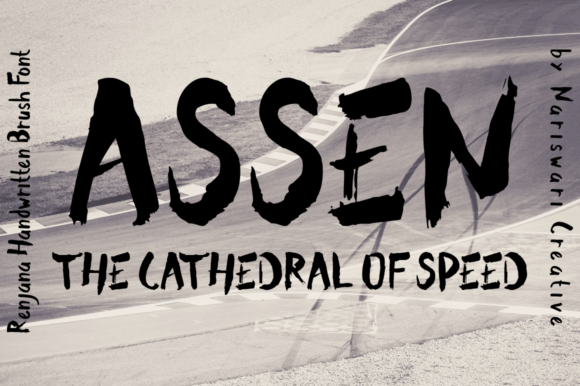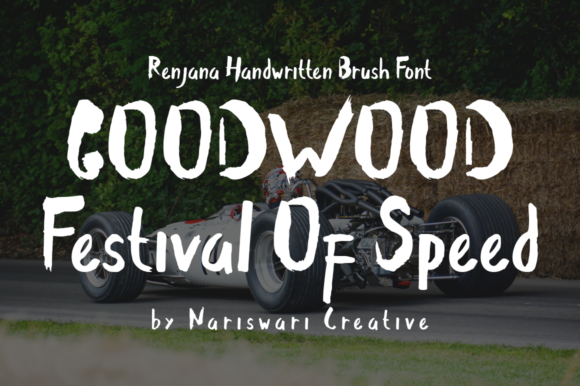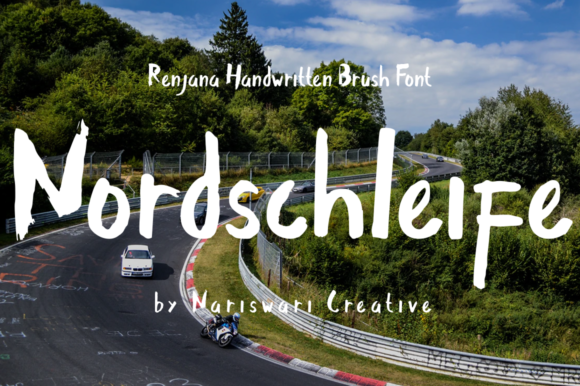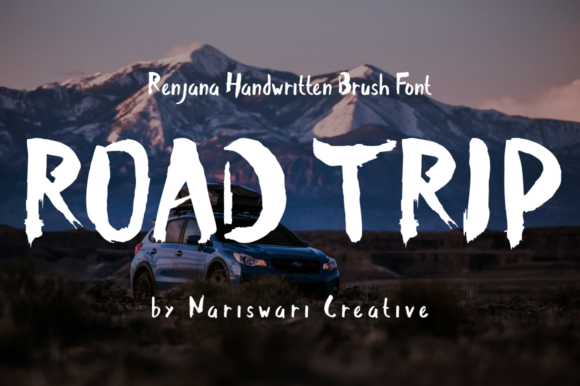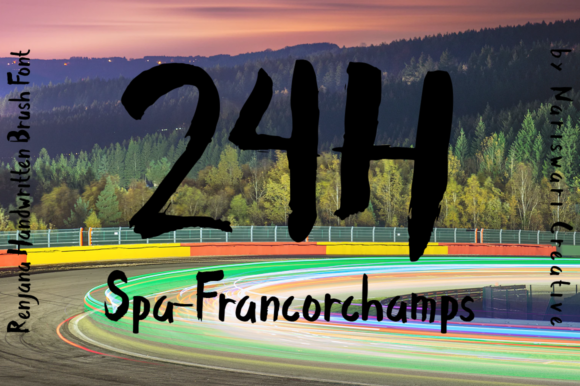
Introduction to Renjana Font
Renjana is a unique and interesting handwritten font.
A little bit quirky, this font looks incredibly adept on a wide variety of contexts .
Key Features of Renjana Font